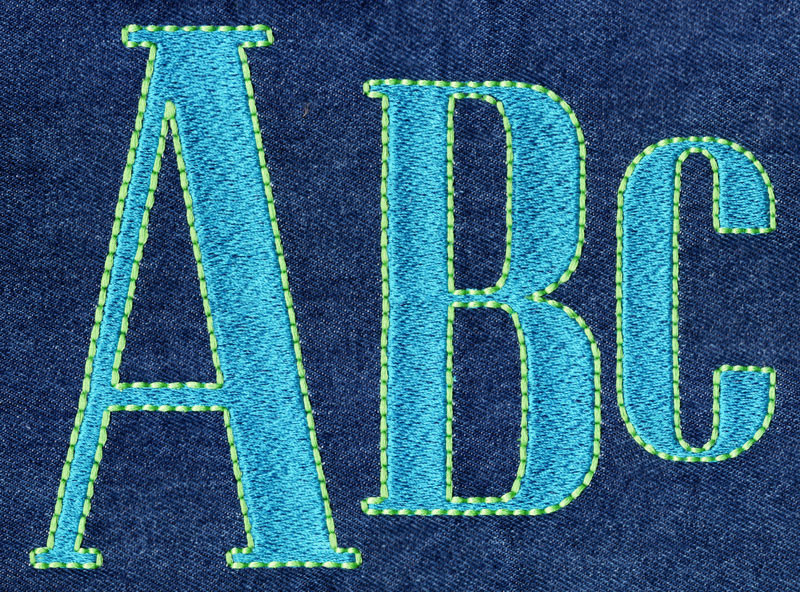
512 Pottery Barn Fill & Floss Font
512 Pottery Barn Fill & Floss Font comes in 2", 3", 4" and 5" heights based on the capital "A". All sizes included for one price. Features uppercase letters, numbers and four punctuation marks as show in character chart. Finished in Fill Stitch with Floss Stitch outlines in two-color set up. Floss Stitch stitches out on all embroidery machines using standard embroidery thread.